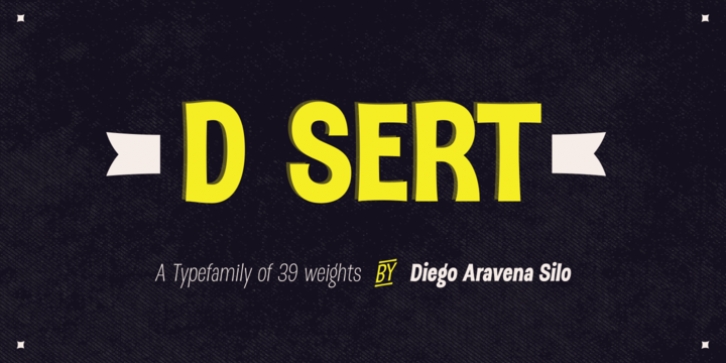
Dsert is the continuation of the Pirate typography. It is inspired by the constructivist design of the 70s in Chile, specifically the work of political “afichismo” who was present at the time of the UP. Dsert is a combination of graphic Chilean rescue, more trends that have erupted in recent years as the hand made and super typefaces; Dsert germinating in a super family of 39 weights, ranging from chilean graphics history to the new typographic trends that have prevailed in recent times font design.